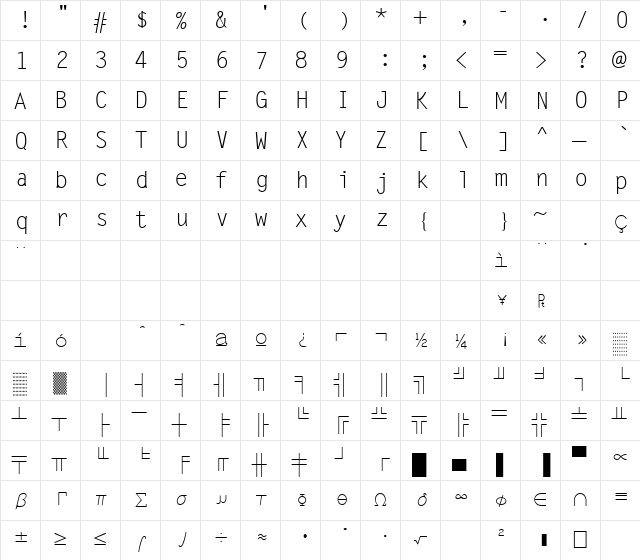
Line Draw Normal
Design Context for Line Draw Typeface
Line Draw offers clean, dependable letterforms without strong stylistic allegiance, making it a practical choice for designers who need flexibility.